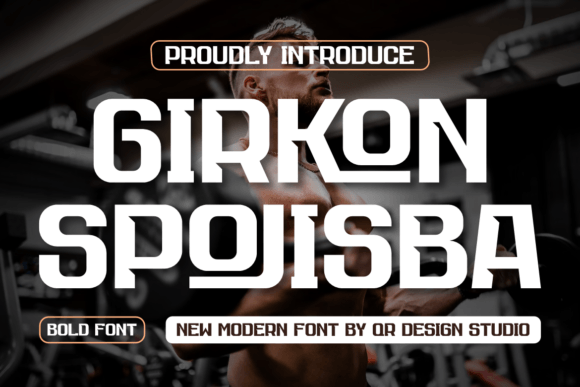
Girkon Spojisba Font: A Bold and Authentic Display Font for Your Branding Needs
Girkon Spojisba Font is a bold and authentic display font designed to elevate your branding projects to the next level. With its unique and striking appearance, this font is perfect for creating logos, sport-related designs, and various other visual projects that require a distinctive touch. The Girkon Spojisba Font is versatile and can be used in a wide range of contexts, making it an excellent addition to your font library.
Key Features of Girkon Spojisba Font
- Bold and Authentic Display Font: Girkon Spojisba Font boasts a bold and authentic style that instantly grabs attention. Its display font characteristics make it perfect for headlines, titles, and emphasis text.
- Suitable for Various Branding Projects: Whether you’re working on a logo, sport-related design, or any other branding project, Girkon Spojisba Font is an excellent choice. Its versatility ensures that it can adapt to different design requirements.
- Wide Range of Contexts: This font is outstanding in a wide range of contexts, allowing you to use it for various design projects without worrying about its compatibility.
How to Use Girkon Spojisba Font in Your Designs
- Logo Design: Use Girkon Spojisba Font to create bold and eye-catching logos that make your brand stand out.
- Sport-Related Designs: The font’s sporty feel makes it perfect for designing jerseys, posters, and other sport-related materials.
- Social Media Graphics: Add a touch of professionalism to your social media graphics with Girkon Spojisba Font.
- Advertising Materials: Use the font to create attention-grabbing headlines and emphasis text in your advertising materials.
Benefits of Using Girkon Spojisba Font
Girkon Spojisba Font offers several benefits that make it an excellent choice for designers and businesses. Some of the key benefits include:
- Unique and Striking Appearance: The font’s bold and authentic style ensures that your designs stand out from the crowd.
- Versatility: Girkon Spojisba Font can be used in various design projects, making it a valuable addition to your font library.
- Easy to Read: Despite its bold style, the font is easy to read, making it perfect for use in different contexts.
Tips for Getting the Most Out of Girkon Spojisba Font
To get the most out of Girkon Spojisba Font, here are some tips to keep in mind:
- Experiment with Different Sizes: Try using the font in different sizes to see how it looks in various contexts.
- Pair it with Other Fonts: Experiment with pairing Girkon Spojisba Font with other fonts to create a unique and visually appealing design.
- Use it for Emphasis Text: Use the font to draw attention to specific parts of your design, such as headlines or calls-to-action.
- Keep it Consistent: Use Girkon Spojisba Font consistently across your designs to create a cohesive brand identity.
Girkon Spojisba Font is a bold and authentic display font that can elevate your branding projects to the next level. With its unique and striking appearance, versatility, and high-quality file formats, this font is perfect for designers and businesses looking to create visually appealing designs. By following the tips outlined in this article, you can get the most out of Girkon Spojisba Font and create stunning designs that make your brand stand out.